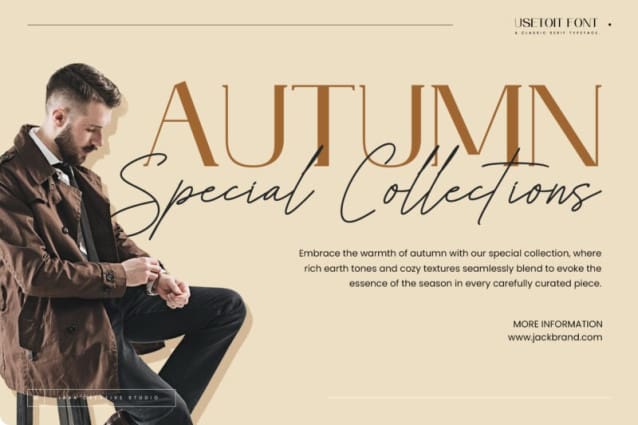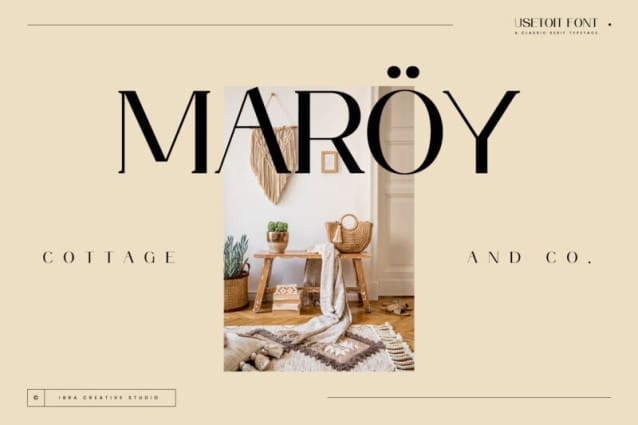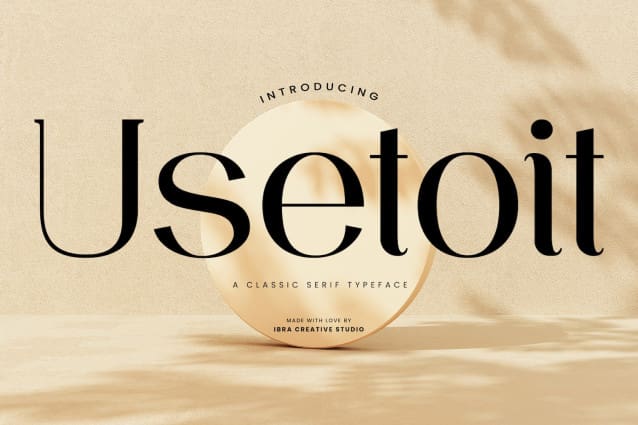
Usetoit Font
Usetoit Font, a classic serif typeface, exudes timeless elegance and refined sophistication. Its gracefully contoured letterforms boast distinct serifs that convey a sense of tradition and authority. With a balanced combination of thick and thin strokes, Usetoit achieves a harmonious visual rhythm, making it well-suited for both formal and literary contexts. The carefully crafted details of this typeface, from the gentle curves to the precise serifs, contribute to its enduring charm and readability. Usetoit seamlessly bridges the gap between tradition and modernity, making it a versatile choice for projects that demand a touch of timeless grace.
Usetoit Font is perfect for branding projects, logo, wedding designs, social media posts, advertisements, product packaging, product designs, label, photography, watermark, invitation, stationery, game, fashion and any projects.